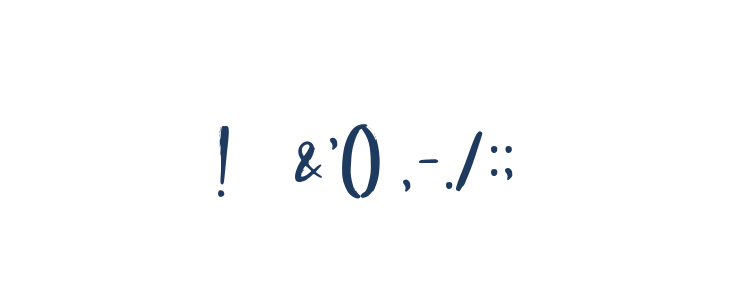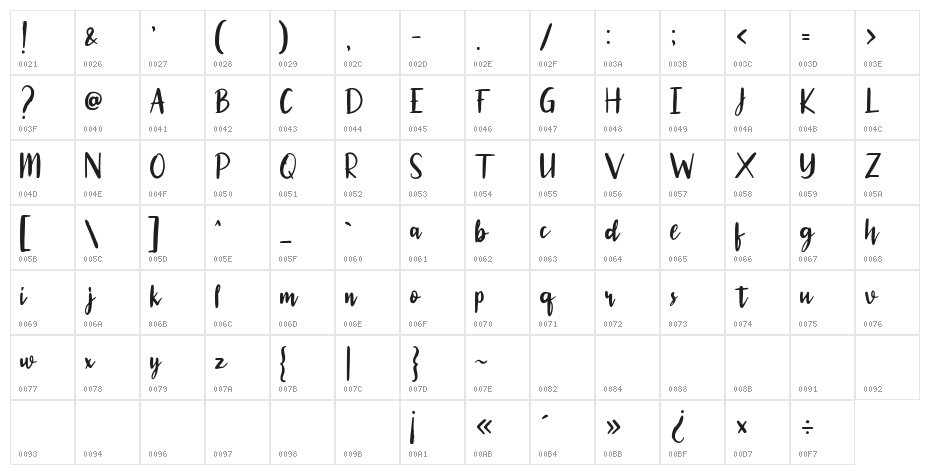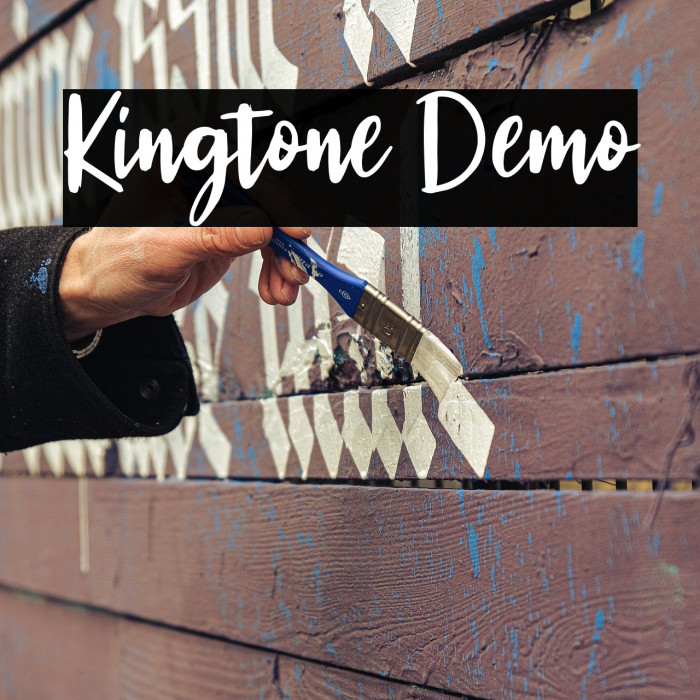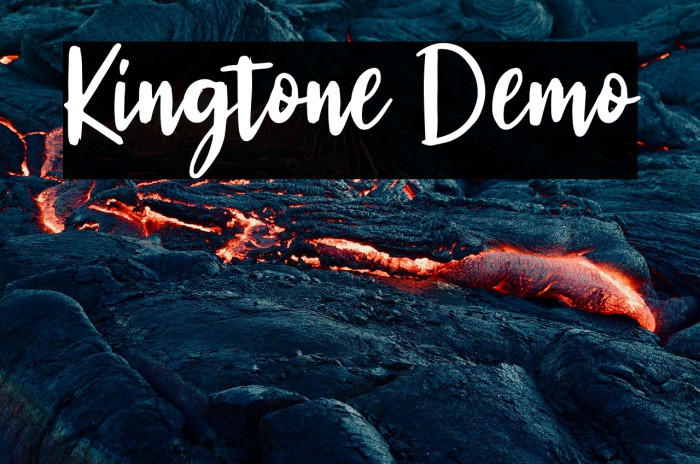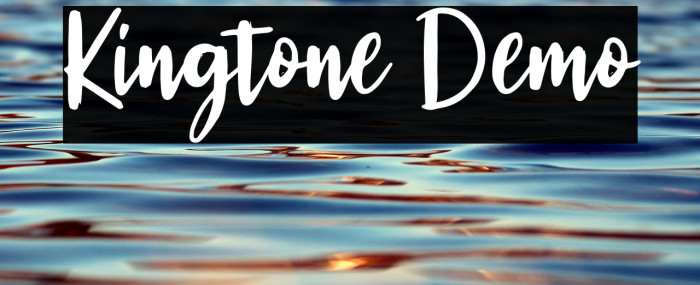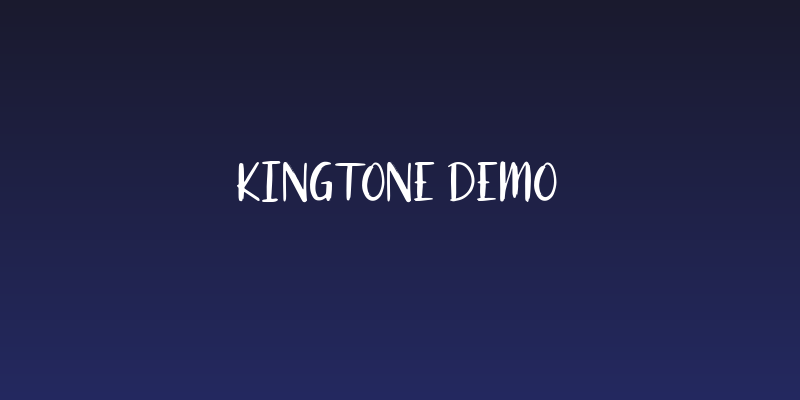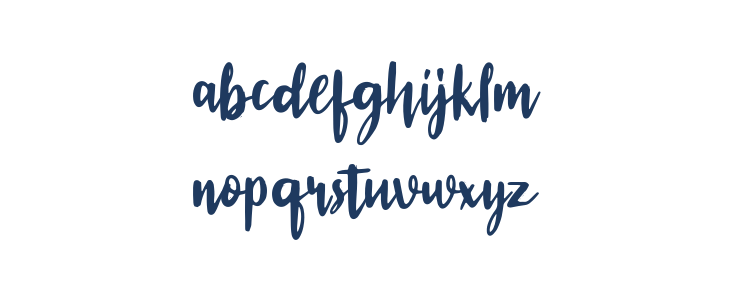
Kingtone Demo Font
Kingtone Demo Description
This font features a bold, handwritten style with a playful and artistic flair. The uppercase letters are tall and slightly irregular, giving a dynamic and lively appearance. The lowercase letters maintain a consistent flow, with some characters extending below the baseline, adding to the casual and informal feel. The numbers and special characters are crafted to match the overall aesthetic, ensuring a cohesive look. The strokes vary in thickness, providing a medium contrast that enhances readability while maintaining a unique character. This font is perfect for projects that require a personal touch or a creative edge.